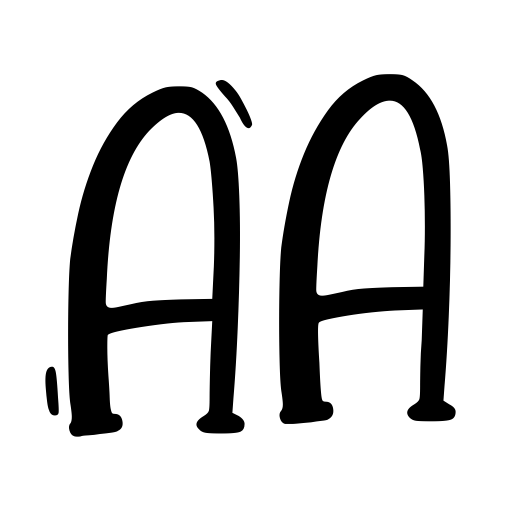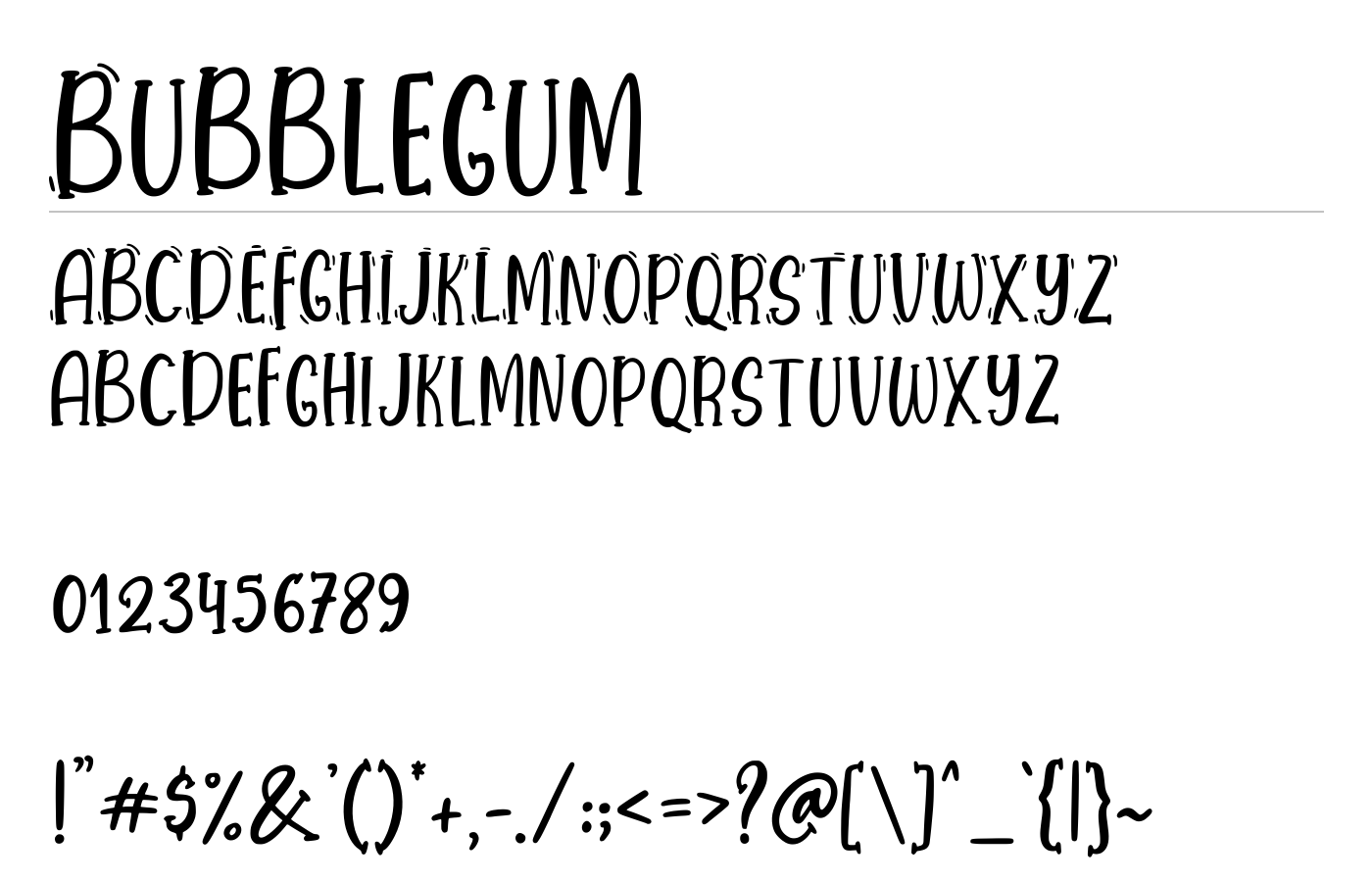
Bubblegum is a playful, handwritten-style sans serif font with a casual and friendly vibe. Its tall, narrow letterforms with slight irregularities give it an approachable and whimsical feel, making it ideal for creative projects like children’s books, informal branding, and fun packaging. This font works best in headlines or display text where a lighthearted, personal touch is desired.
Bubblegum Font
About Bubblegum Font